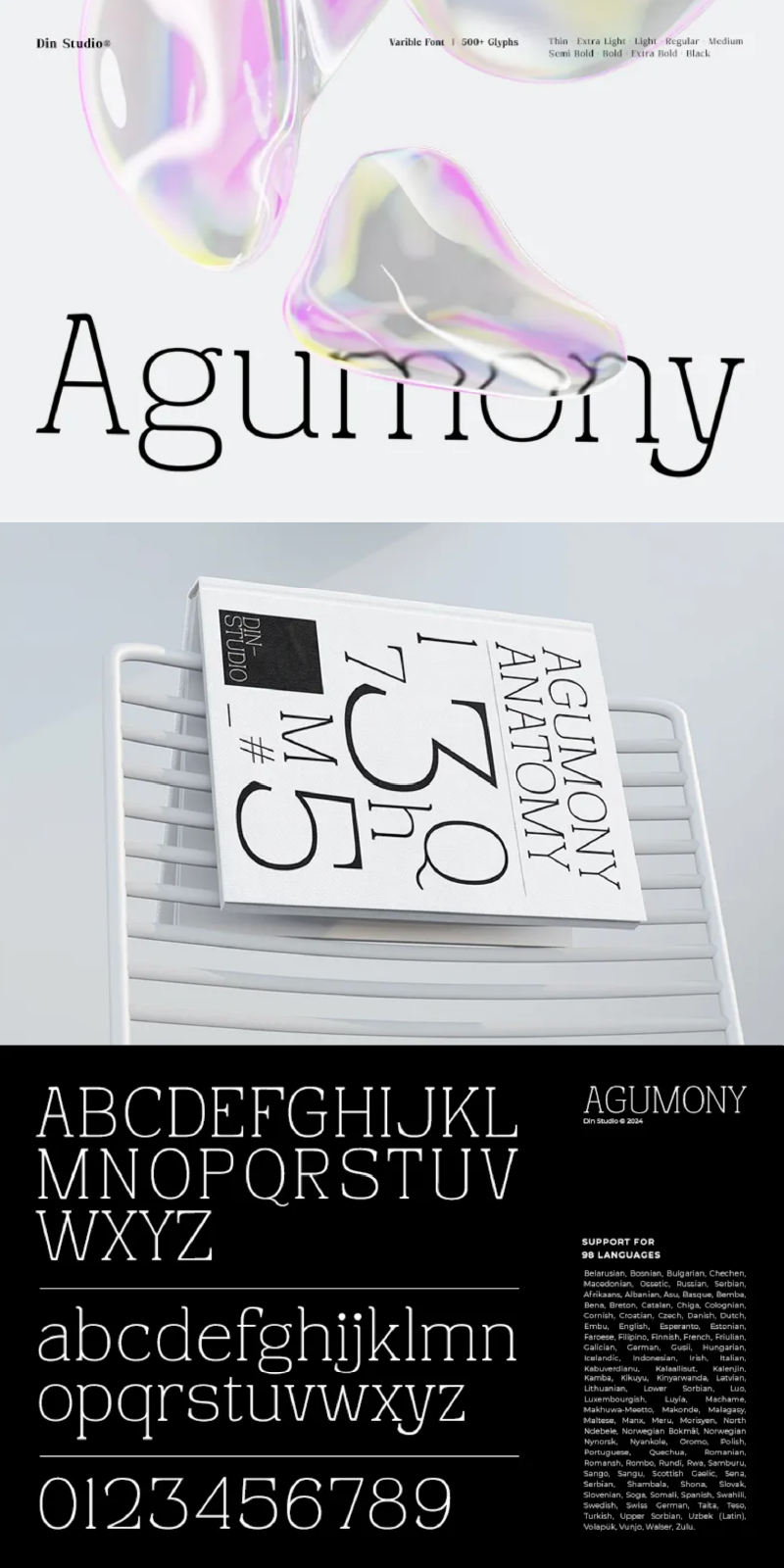
Agumony Font
About Agumony
Agumony is a sleek serif font family crafted in a simple and modern style. With 9 different weights, it offers unparalleled versatility, allowing you the freedom to create designs that range from minimalist to bold. Agumony is your go-to font for a clean, contemporary look.
Agumony’s different weight fonts :
- Thin
- Extra Light
- Light
- Regular
- Medium
- Semi Bold
- Bold
- Extra Bold
- Black
Agumony fits in headlines, logos, posters, branding materials, print media, editorial layouts, and many more designs. Find out more ways to use this font by taking a look at the font preview.